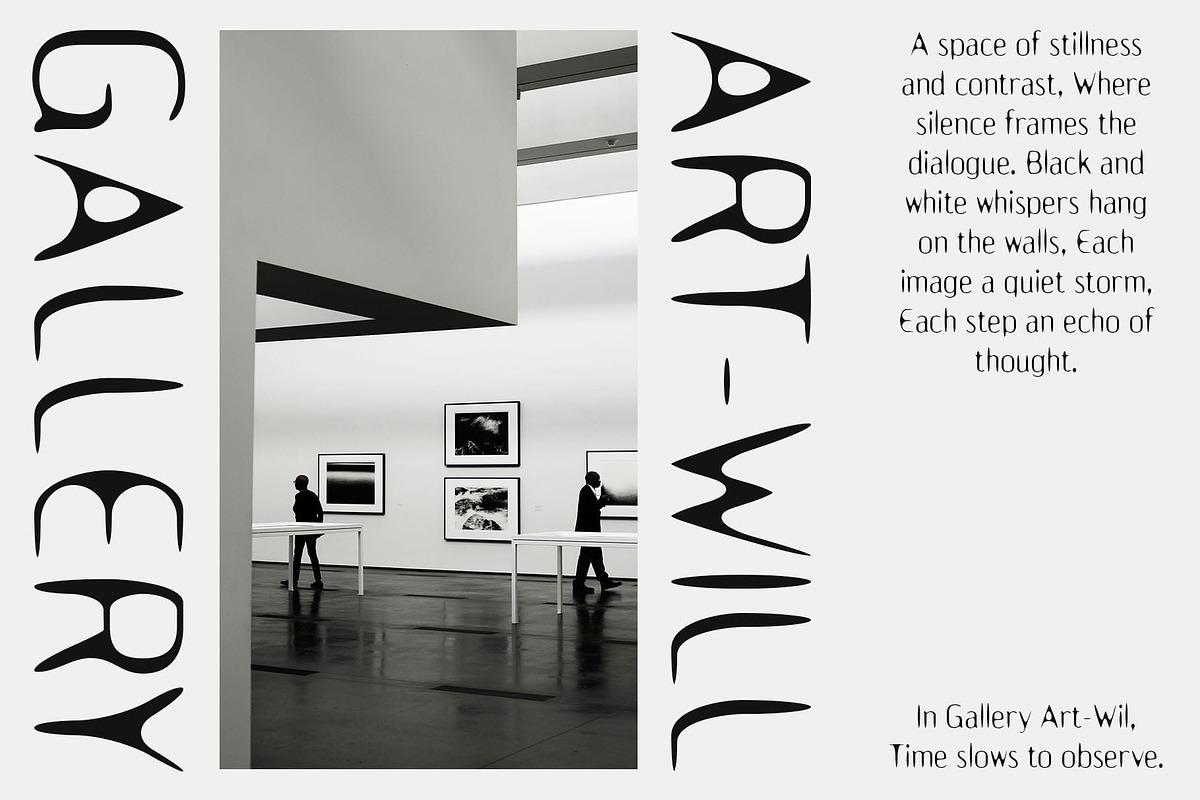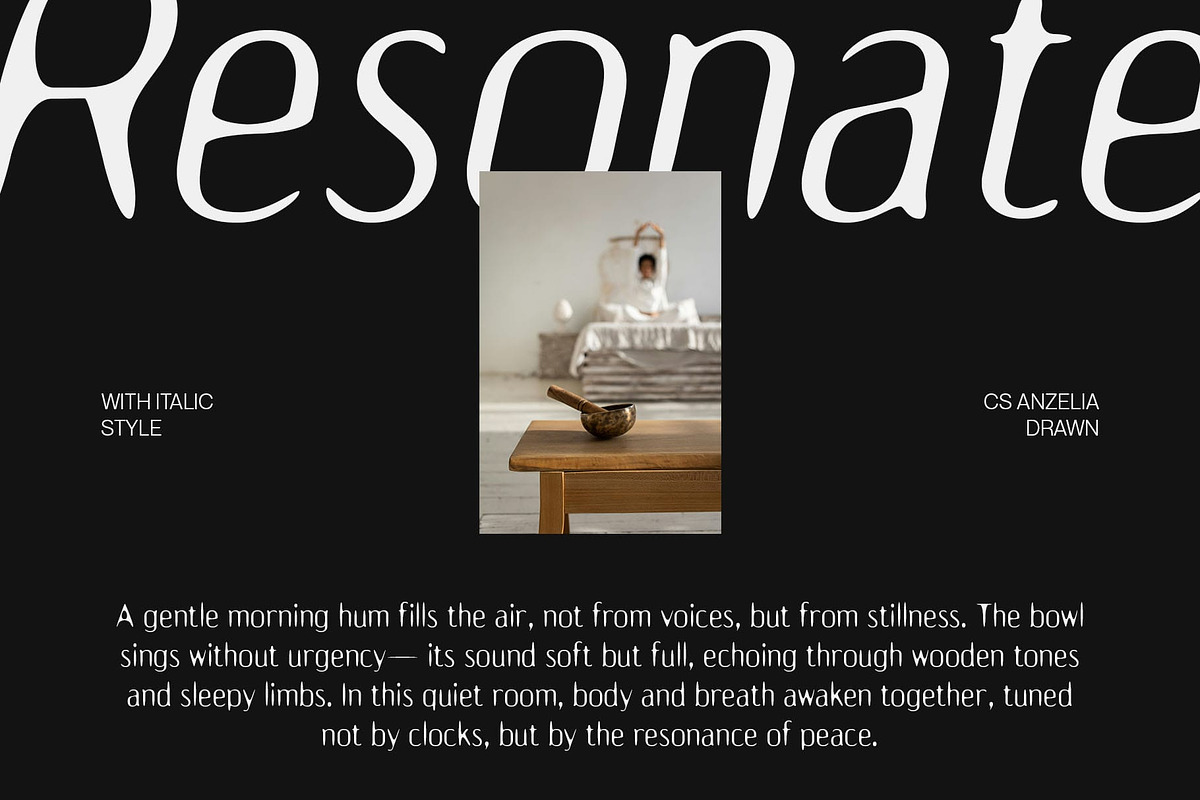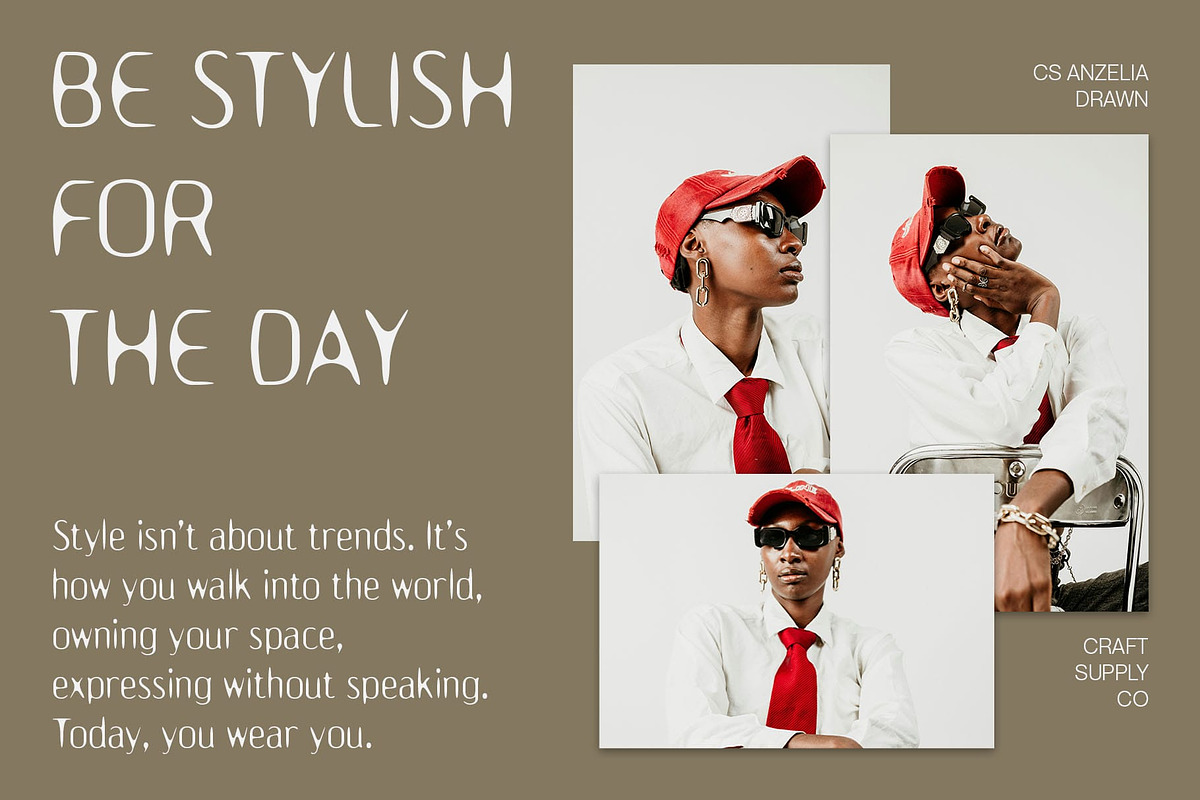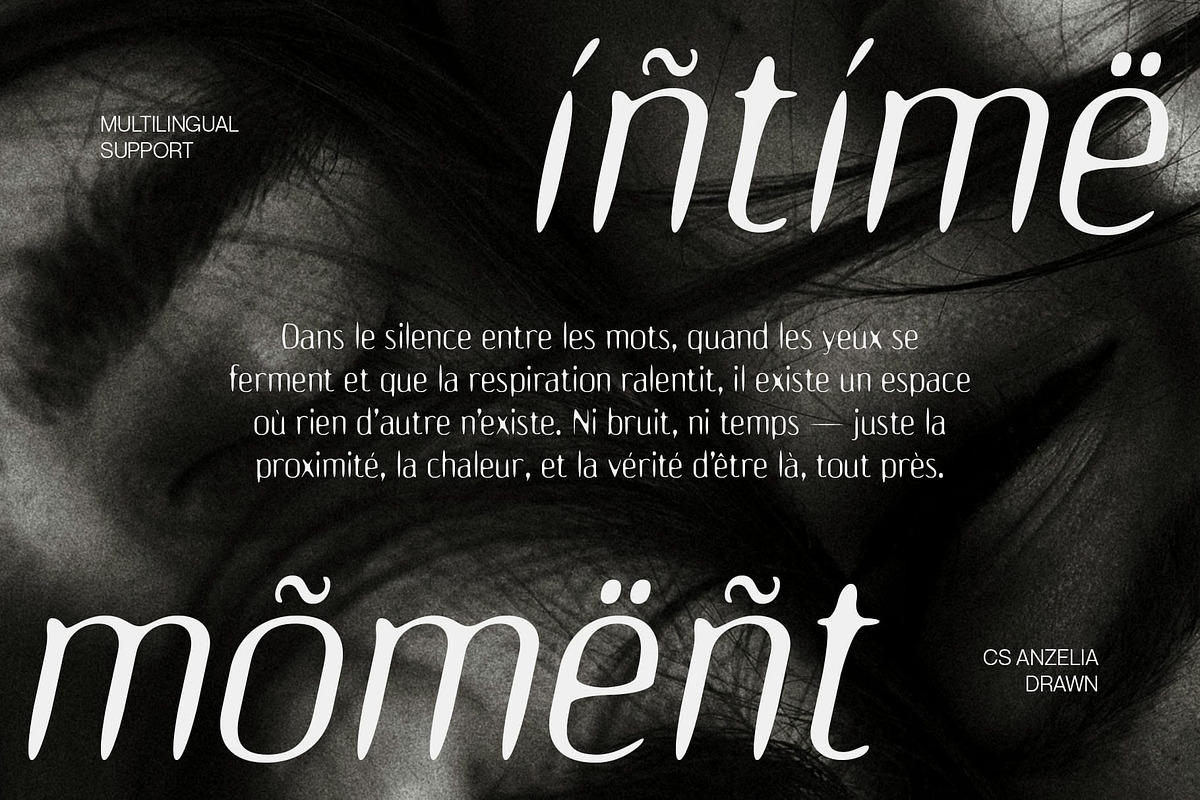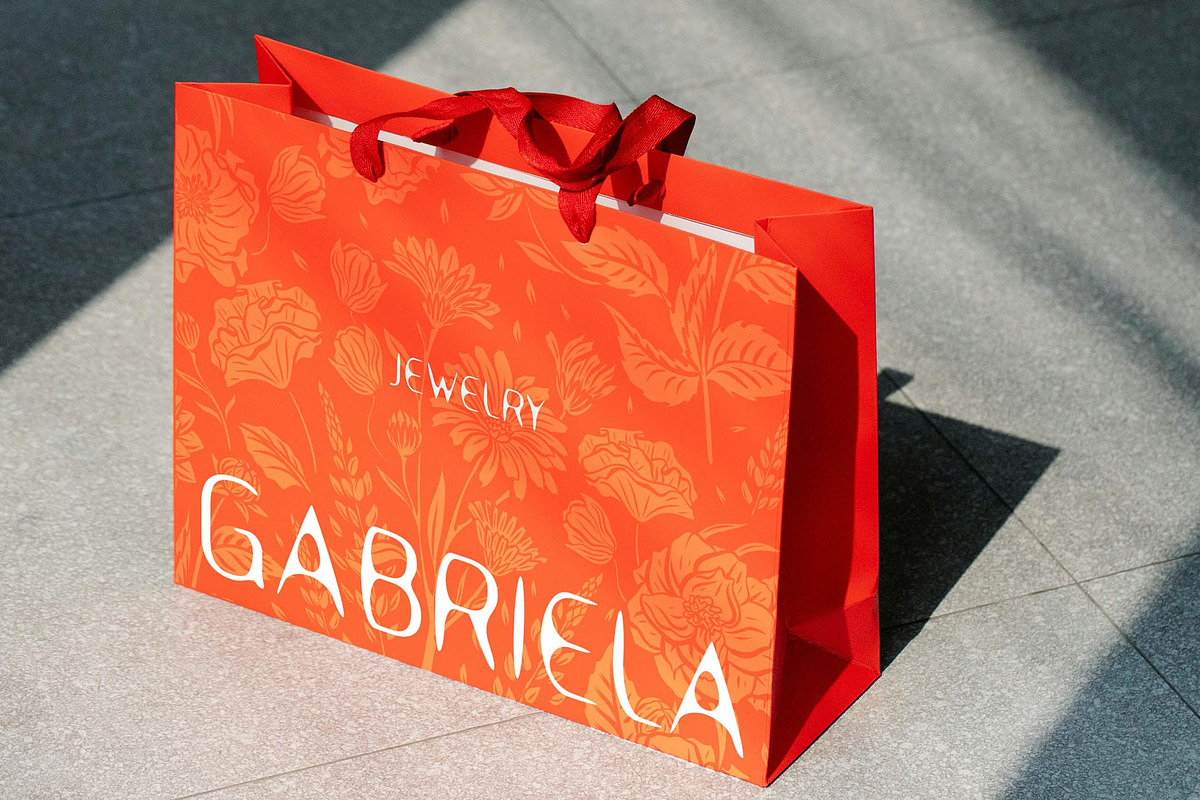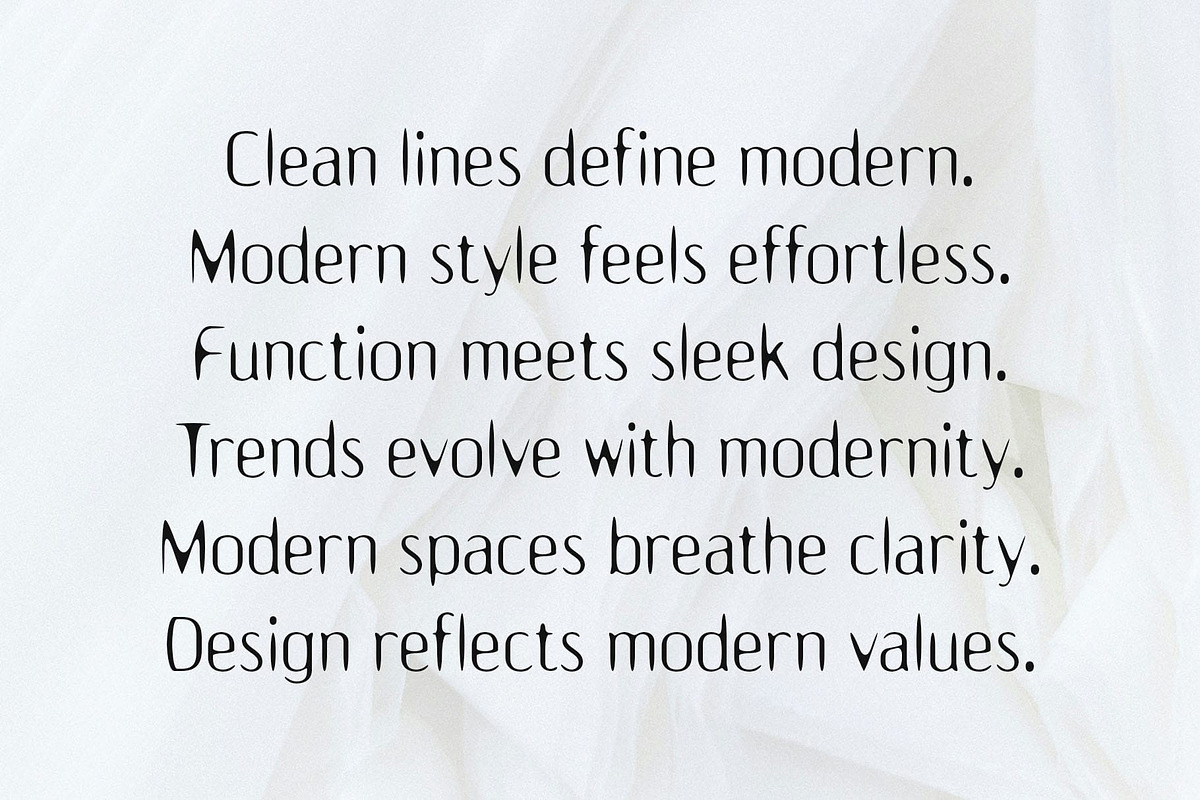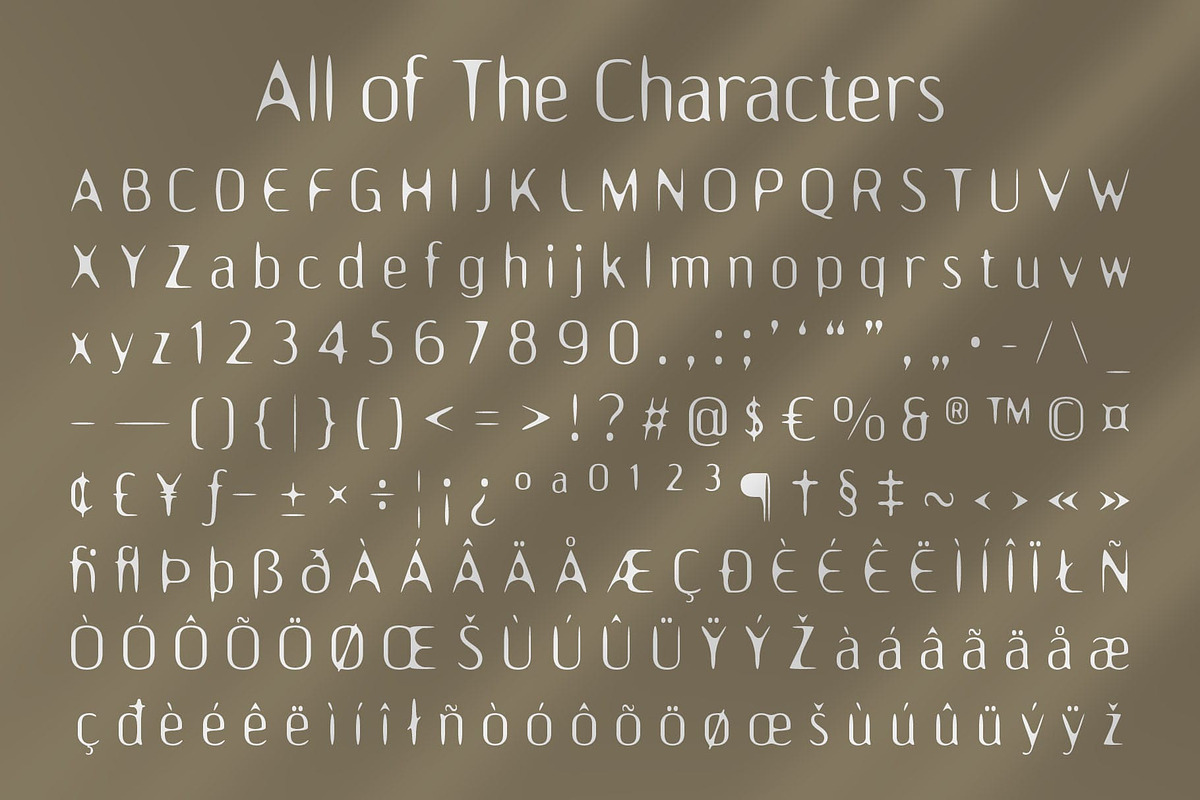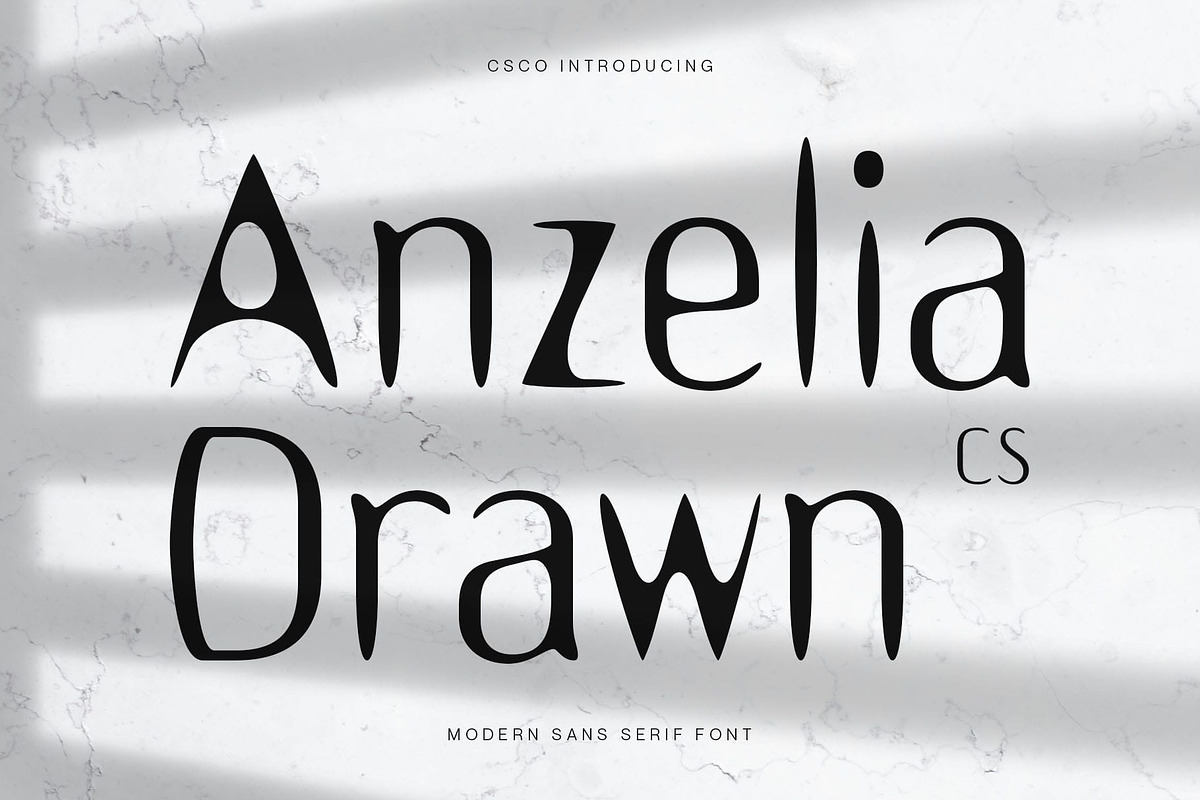
CS Anzelia Drawn
CS Anzelia Drawn: Where Precision Meets Personality
Structured Modern Form with Human Touch CS Anzelia Drawn is a modern sans serif font built on a clean geometric foundation. Its balanced proportions and straightforward letterforms offer clarity, stability, and a strong contemporary aesthetic—making it perfect for minimalist and modern design needs.
Organic Texture from Drawn Detailing What sets Anzelia apart is its expressive drawn effect. The hand-drawn texture introduces subtle irregularities, adding an organic, imperfect feel to the structured design. This fusion of digital precision and handcrafted character gives the font a unique, artistic charm that feels both thoughtful and authentic.
Minimalist Yet Warm Personality The font’s simplicity is elevated by the warmth and visual texture of the drawn overlay. It maintains a minimalist appearance but avoids feeling cold or sterile—making it well-suited for modern designs that aim to communicate with personality and approachability.
Versatile for Creative and Professional Designs This contemporary font is ideal for branding, editorial design, packaging, or digital visuals that aim to balance professionalism with creative flair. Whether you’re designing for handmade goods, lifestyle content, or modern publications, this font offers a refined aesthetic that feels both unique and deeply human. Its versatility lies in its ability to adapt—from clean tech-inspired layouts to warm, handcrafted brand stories.